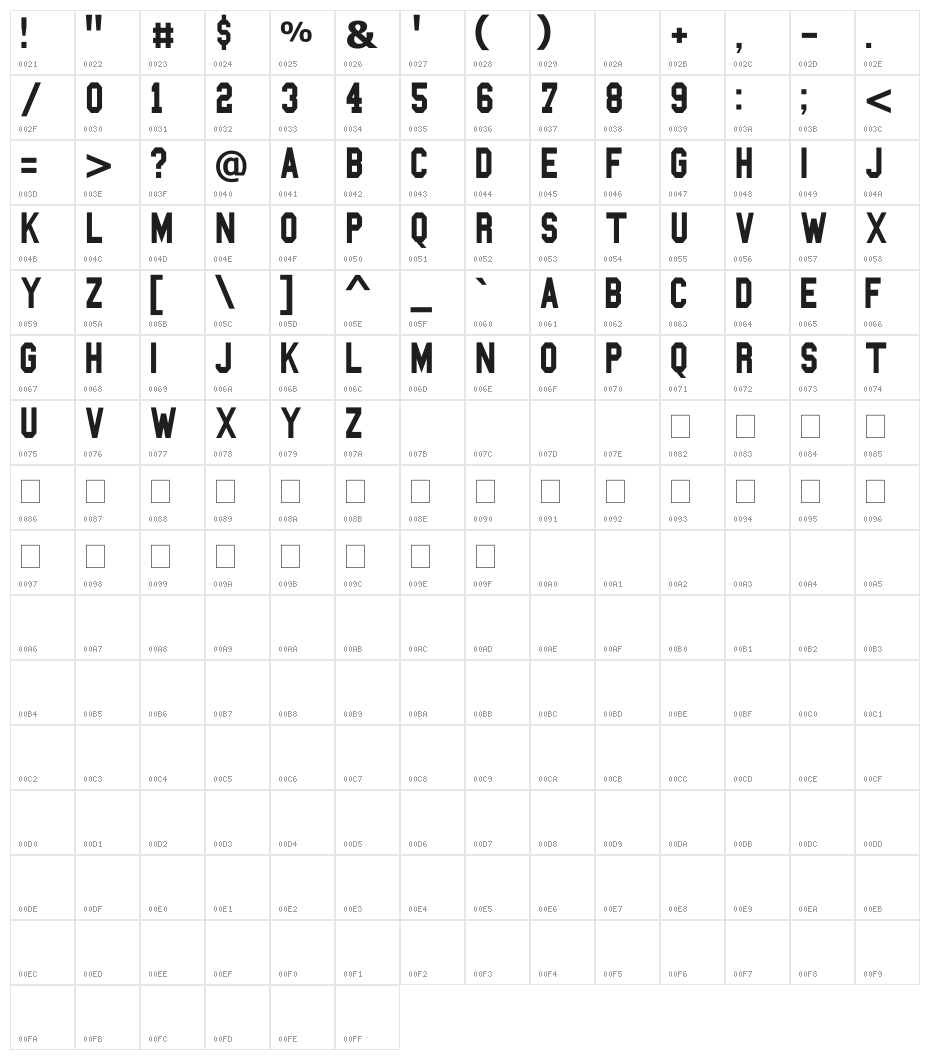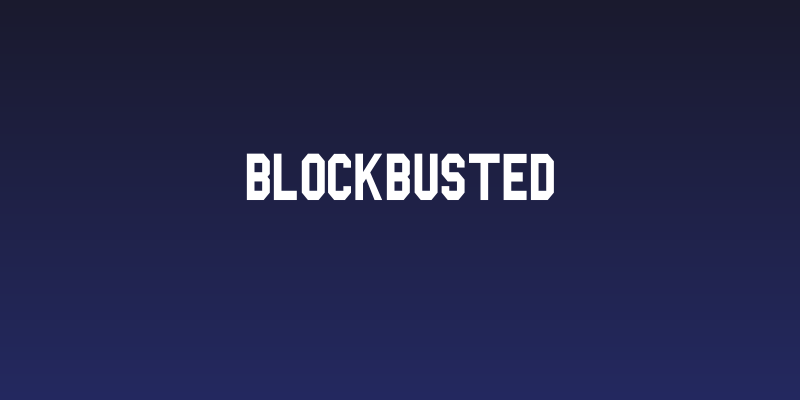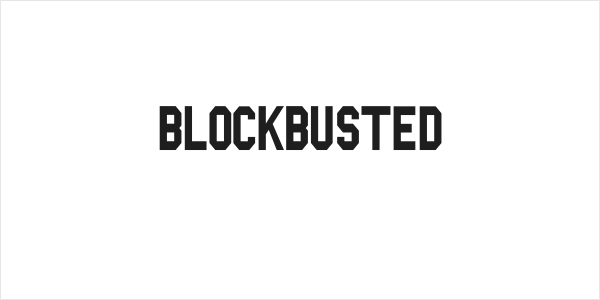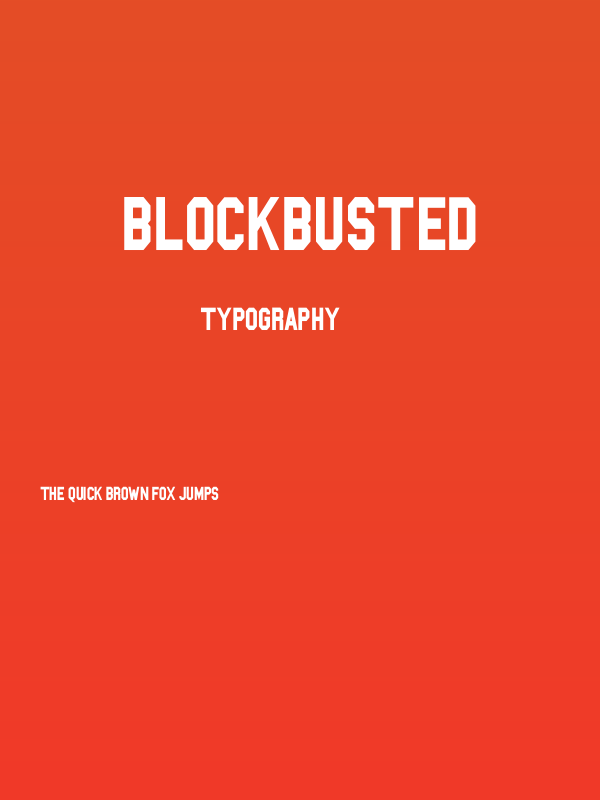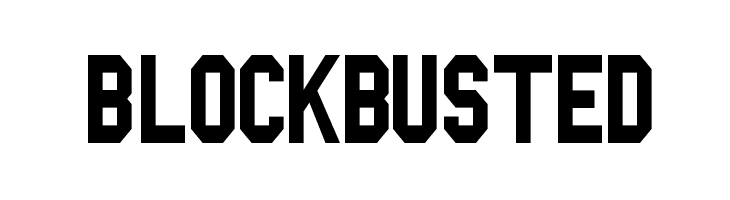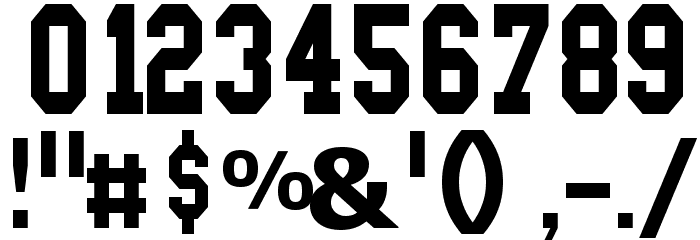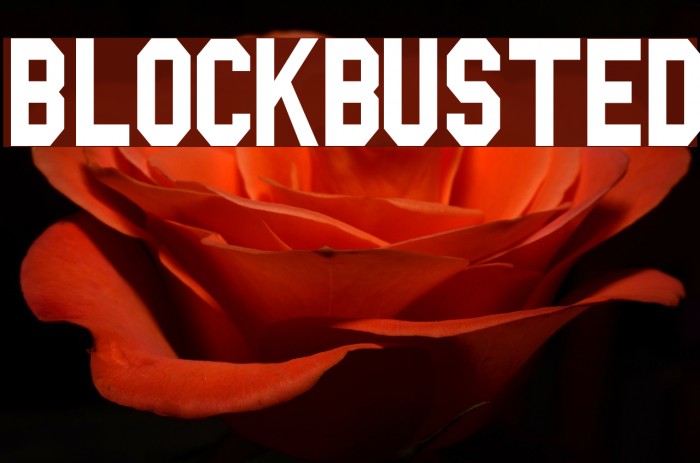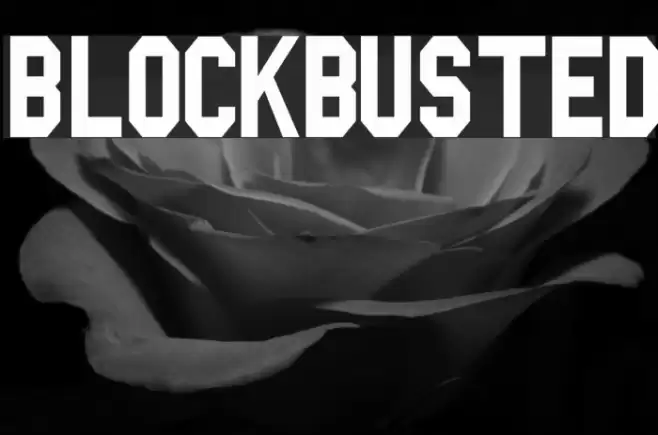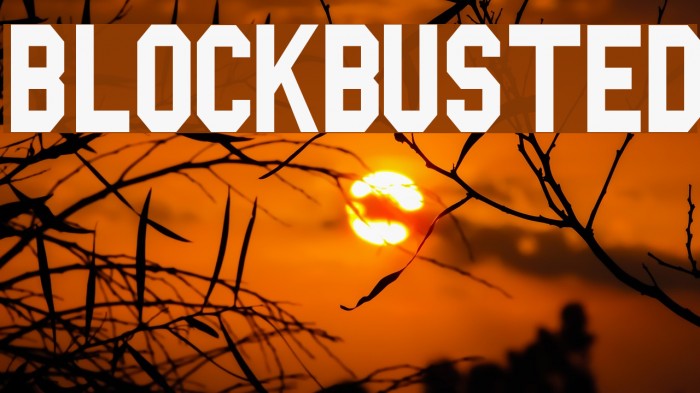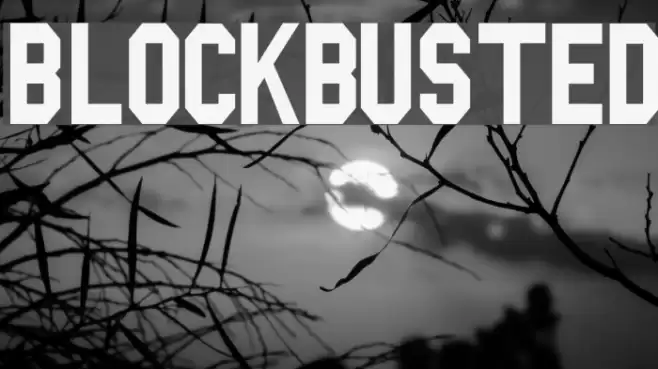
Blockbusted Font
Blockbusted Description
This font features a bold, geometric design with strong, angular lines and a commanding presence. The characters are constructed with a blocky, industrial aesthetic, giving them a modern and assertive look. Each letter and number is crafted with precision, featuring sharp edges and a uniform thickness that enhances readability while maintaining a distinctive style. The font's uppercase and lowercase letters are consistent in their boldness, and the numerals are designed to match the overall robust appearance. Special characters are included, maintaining the same bold and angular design, making this font versatile for various applications.
| Proposed Projects | Ideal for branding, posters, headlines, and any design project requiring a strong, impactful typeface. |